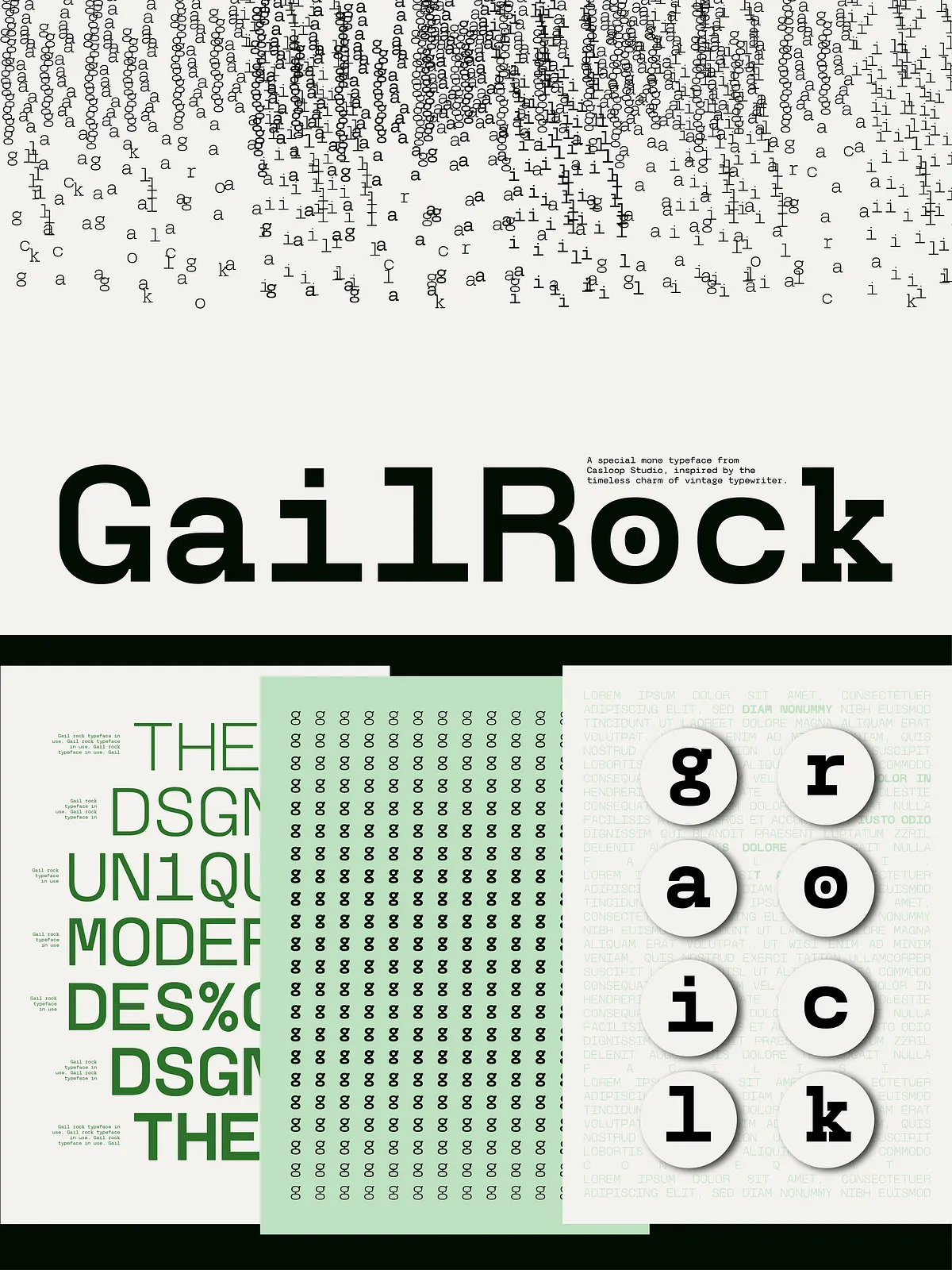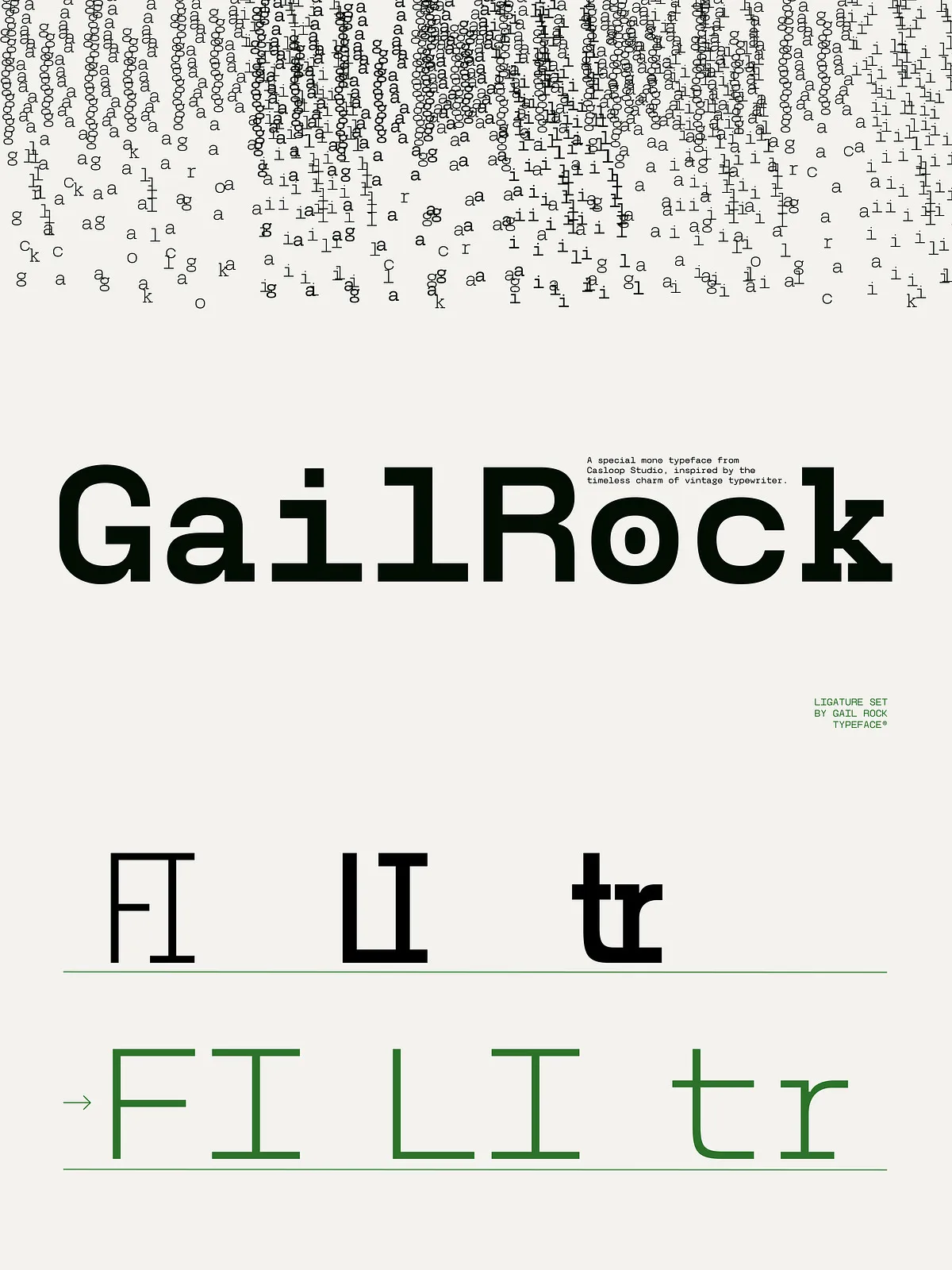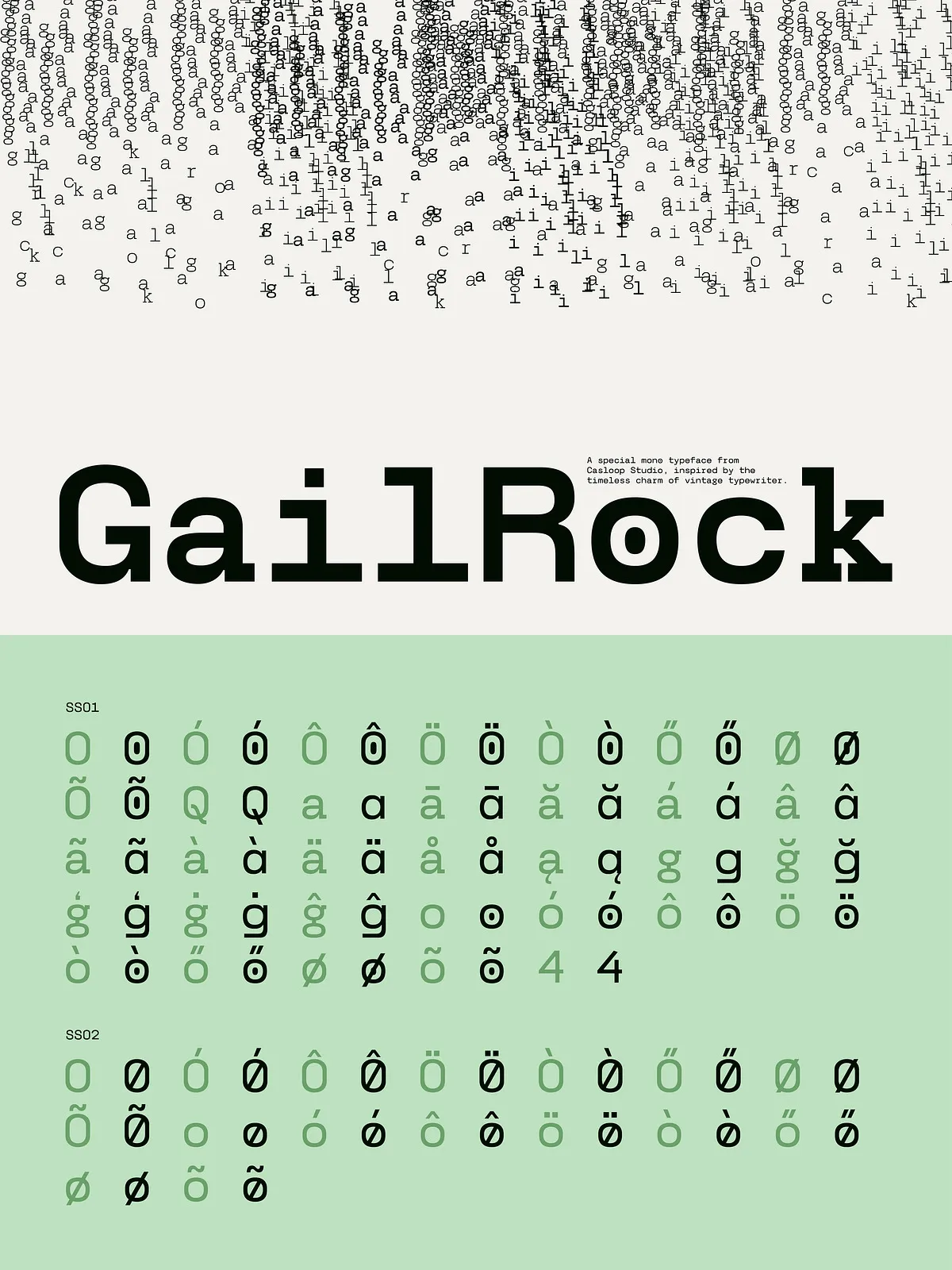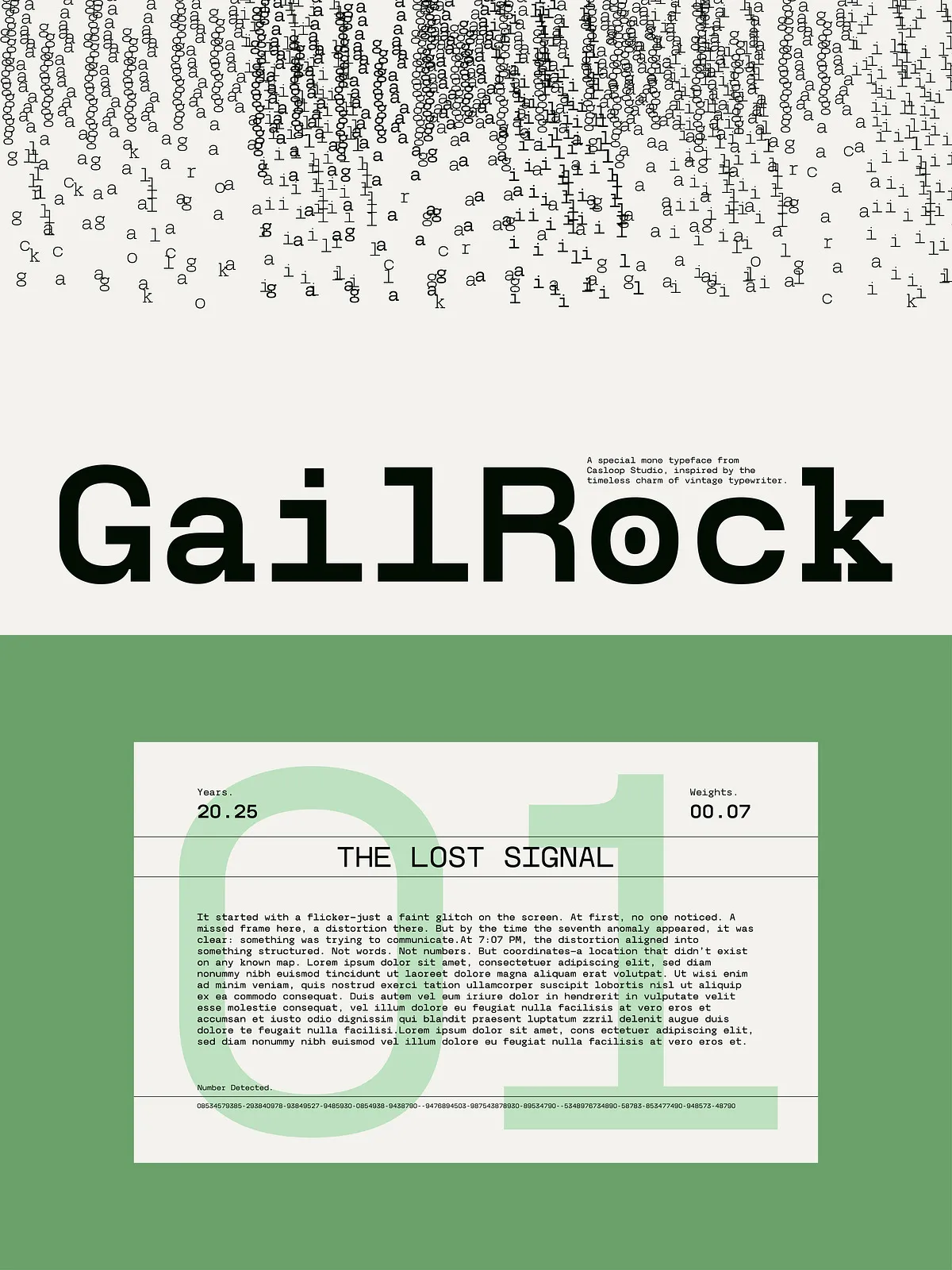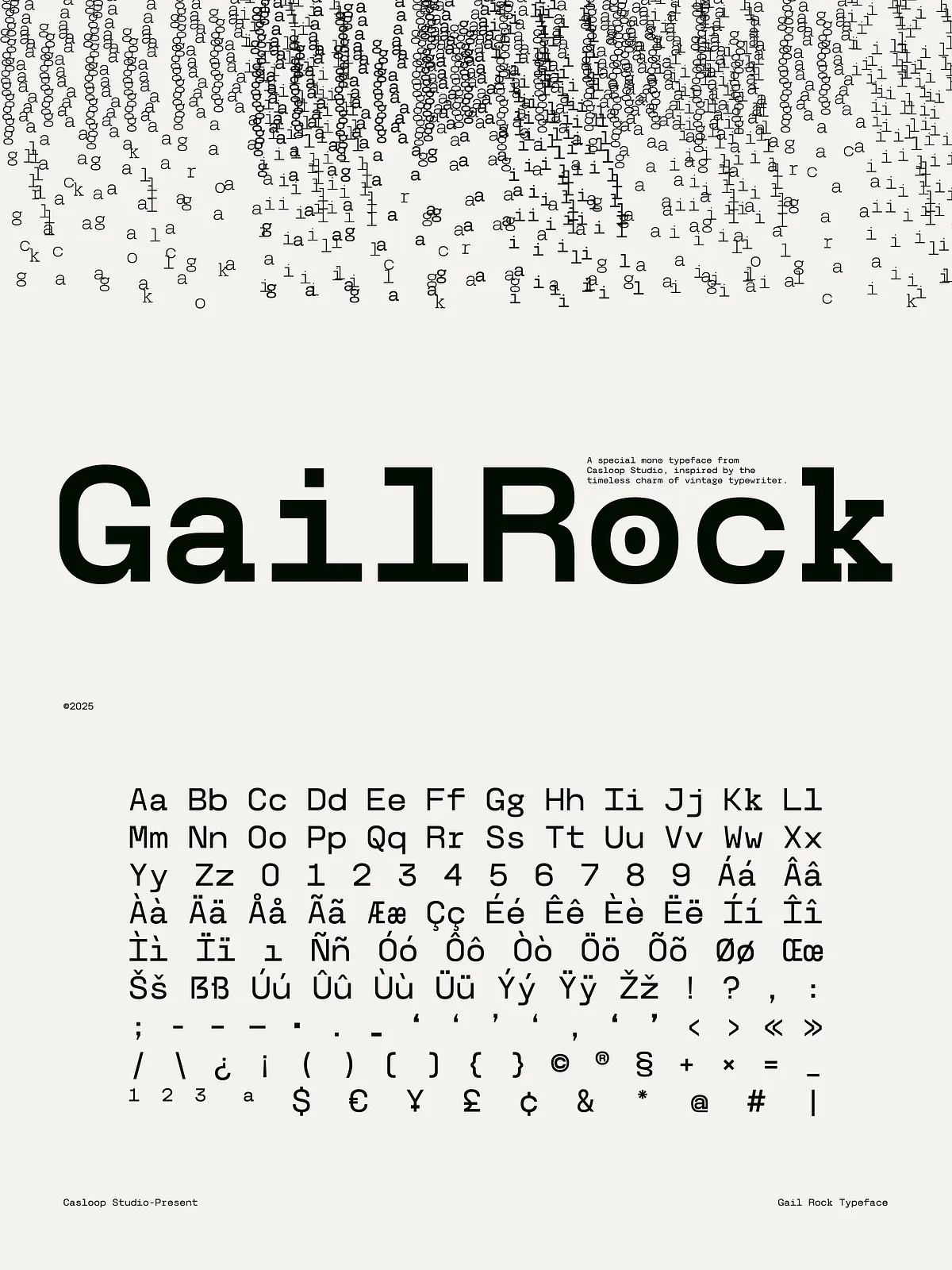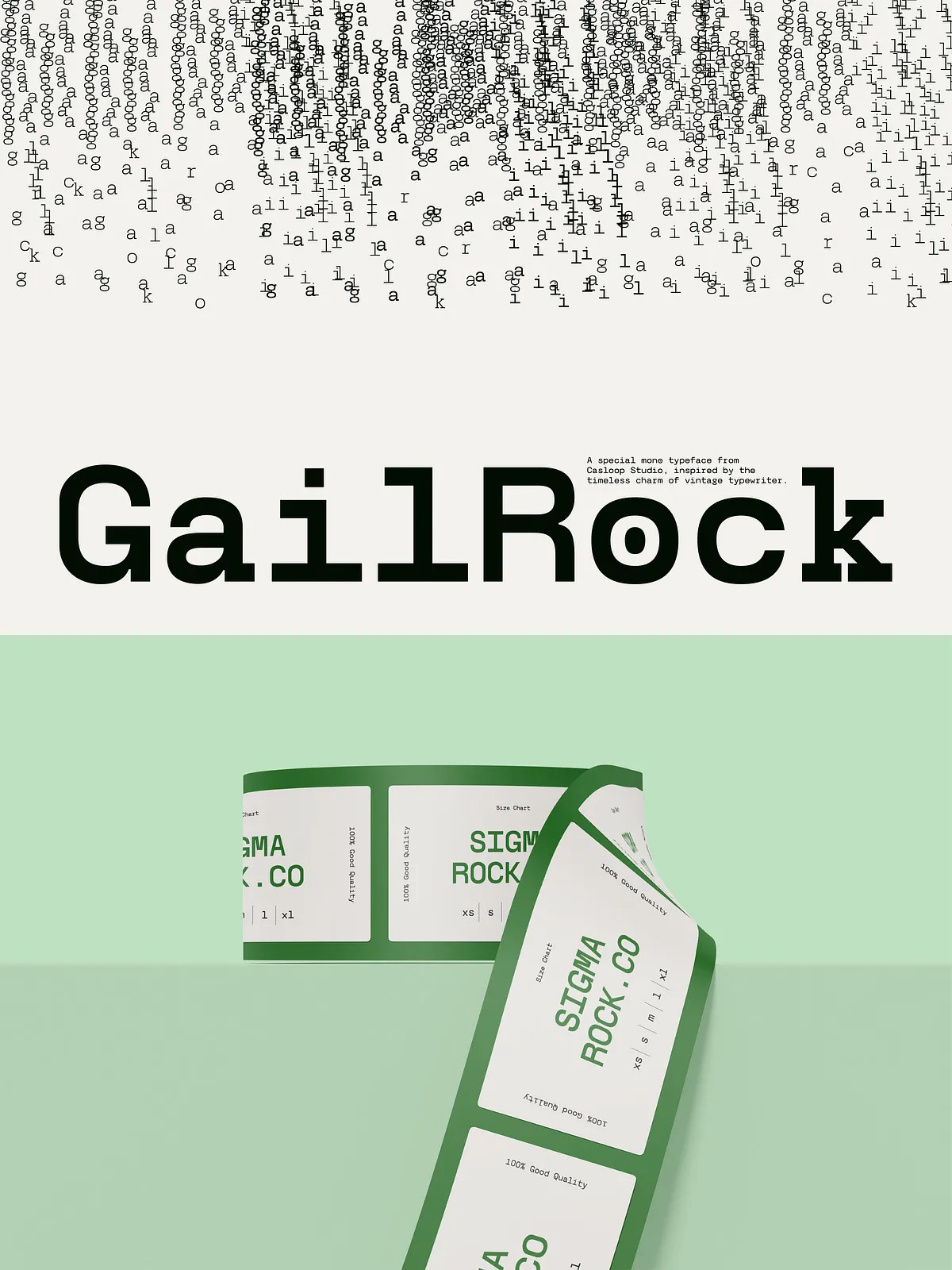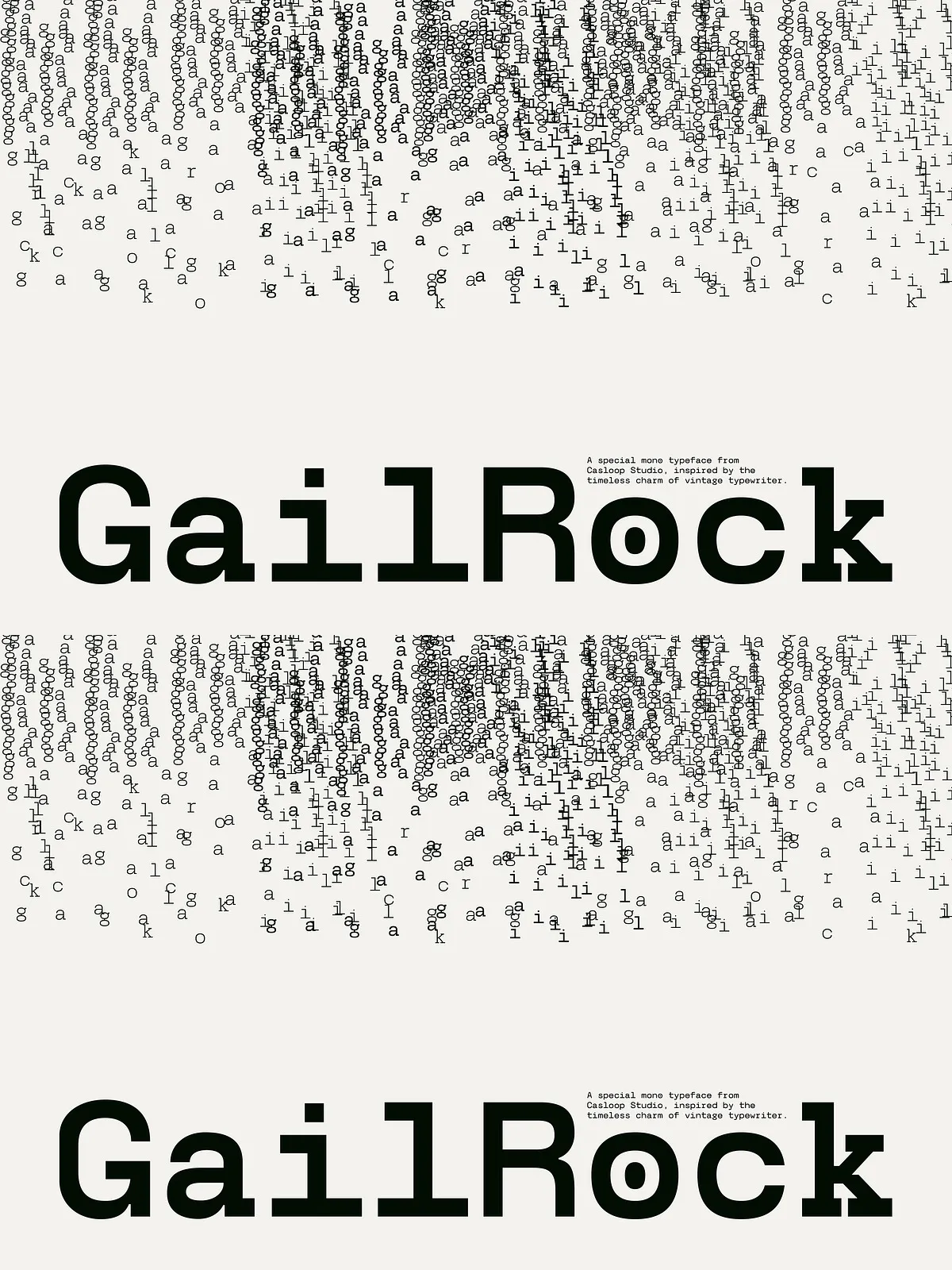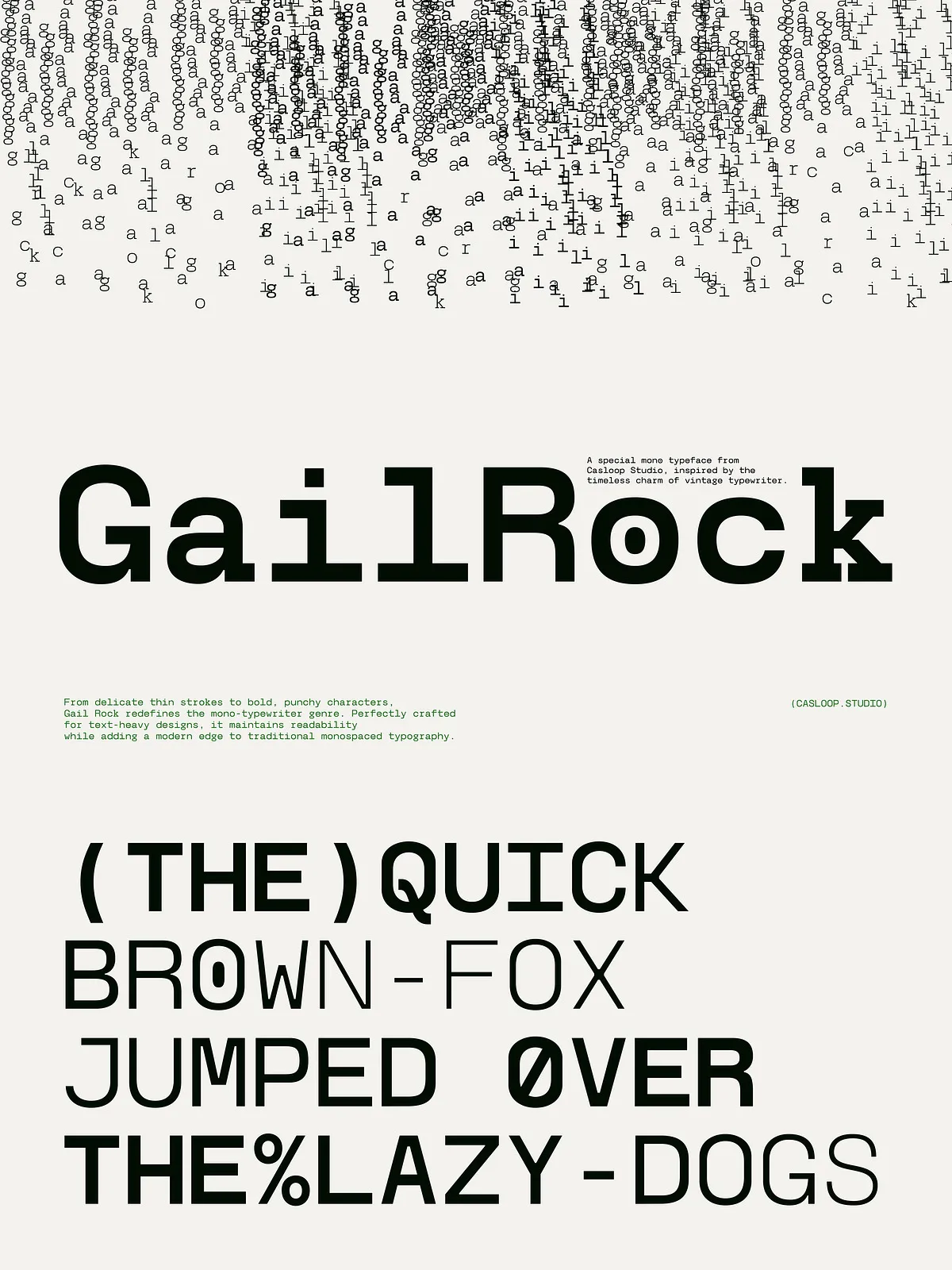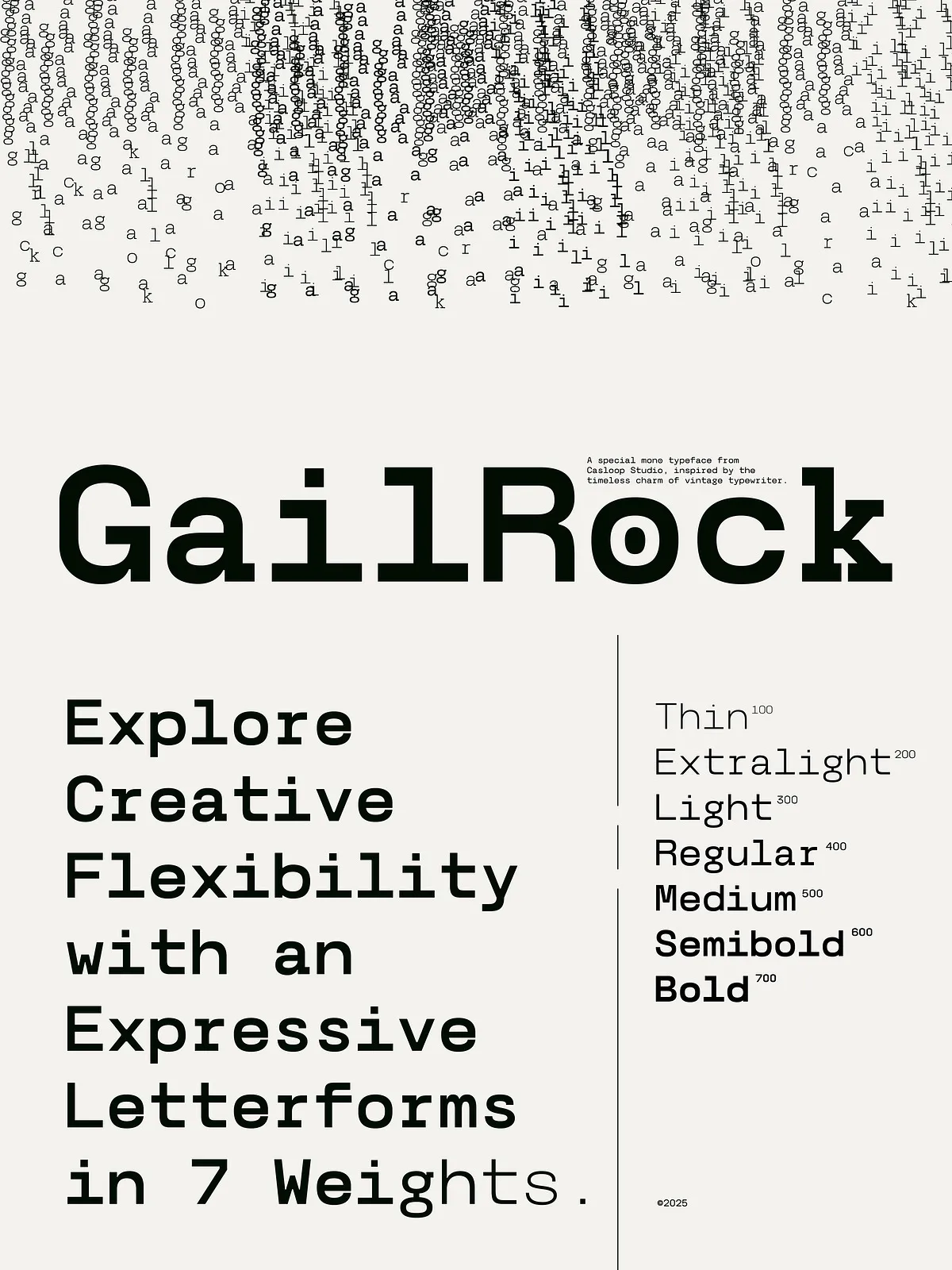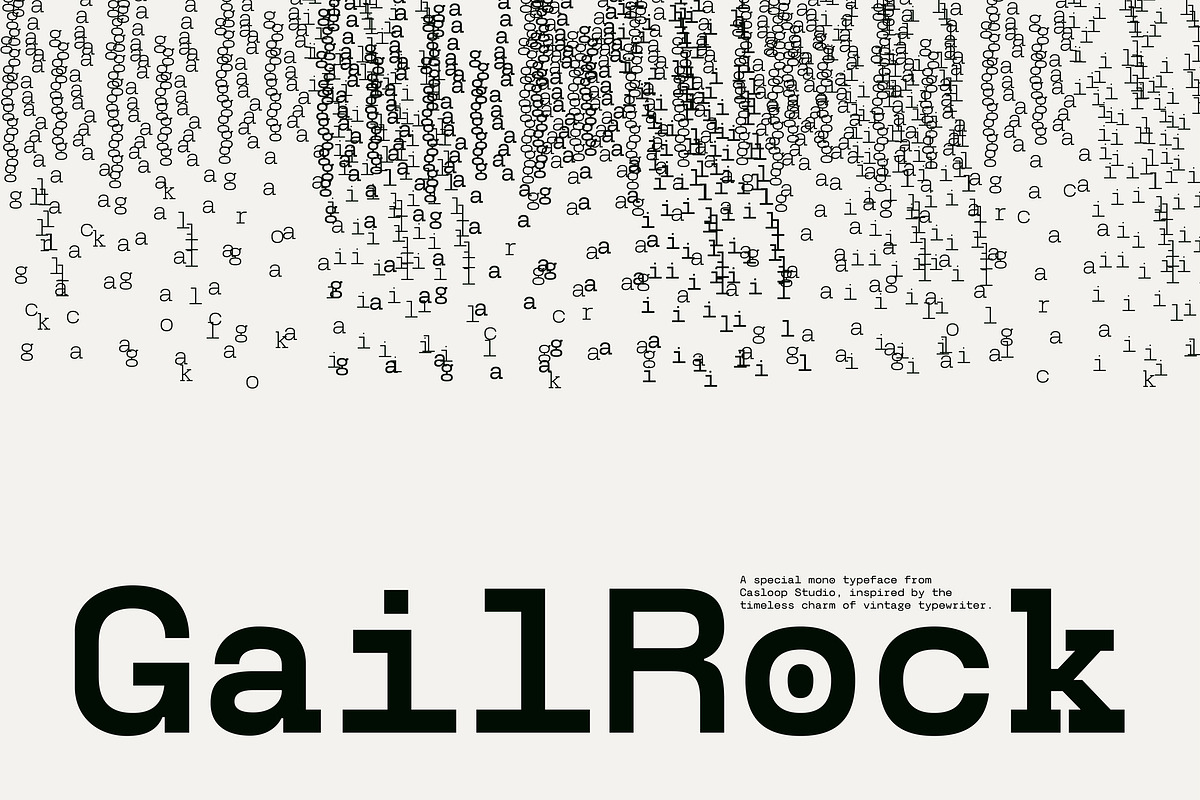
Step into the rhythm of classic mechanics and modern clarity with Gail Rock—a monospaced typeface that doesn’t just mimic vintage typewriters, it channels their spirit with fearless confidence. Engineered for creators who demand both precision and personality, Gail Rock delivers unmatched consistency, expressive flexibility, and typographic power across every project, from code blocks to creative storytelling.
Why Gail Rock Stands Out in a Crowd of Monospaces
While most monospaced fonts fall into the trap of sterile uniformity, Gail Rock brings character, grit, and soul to every letterform. Inspired by the tactile clack of steel typebars and the subtle imperfections of mechanical printing, this font family was built for projects that need to stand out—without sacrificing alignment, readability, or technical perfection.
7 Expressive Weights: From Subtle Thin to Powerful Bold
Whether you’re setting a delicate poem, a dense technical manual, or a standout headline, Gail Rock’s full 7-weight scale gives you the typographic control you need:
- Thin – For elegant, minimalist layouts and subtle highlights.
- Light – Delicate yet distinct, ideal for body text with texture.
- Regular – The default workhorse with perfect balance.
- Medium – Adds visual weight without overpowering.
- Demibold – Sharp for section headers and emphasis.
- Bold – Commands attention in titles and branding.
- Black – Full-throttle impact for dominant headlines and logos.
With these weights, you can build typographic hierarchy that speaks with authority and rhythm.
Built for Creativity: Alternate Characters & Stylistic Sets
Go beyond standard typography with Gail Rock’s advanced features:
- Stylistic Set 01 (SS01): Exclusive alternates for a more authentic typewriter vibe—think unique ‘a’, ‘g’, ‘y’, and punctuation.
- Stylistic Set 02 (SS02): Modernized flourishes with softened terminals and stylized numerals.
- Ligature Support: Smoother text flow with contextual substitutions (e.g., ‘fi’, ‘fl’) that eliminate awkward gaps and improve readability.
These aren’t just design gimmicks—they’re tools for narrative depth, visual intrigue, and professional polish.
Languages & Glyphs: Crafted for Global Use
Gail Rock isn’t limited by geography. It supports:
- Extensive multilingual character sets (Latin, Latin Extended, Greek, Cyrillic)
- Full support for accented characters (é, ç, ñ, ü, ø, etc.)
- Special symbols and punctuation for technical, editorial, and artistic use
No more font-switching for international projects. Gail Rock holds up under global pressure.
Ready for Any Stage: Where Gail Rock Shines
From developer workflows to high-end editorial design, Gail Rock adapts with purpose and flair:
- Code Visualization & Documentation – Give your syntax a vintage voice without sacrificing readability.
- Modern Editorials & Zines – Add retro charm to articles, interviews, or personal projects.
- Fashion & Music Branding – Perfect for textile labels, vinyl releases, and streetwear collections.
- Digital Storytelling & Screenplays – Imbue scripts and narratives with mechanical authenticity.
- Merchandise & Packaging – Stand out on T-shirts, tote bags, and product boxes.
More Than a Font — It’s a Design Philosophy
Gail Rock isn’t just a typeface. It’s a mindset—where technical rigor meets creative rebellion. It honors mechanical history while serving digital innovation. Every stroke is deliberate. Every character is alive. From Bali—not just to the world, but to every layout that dares to be different.